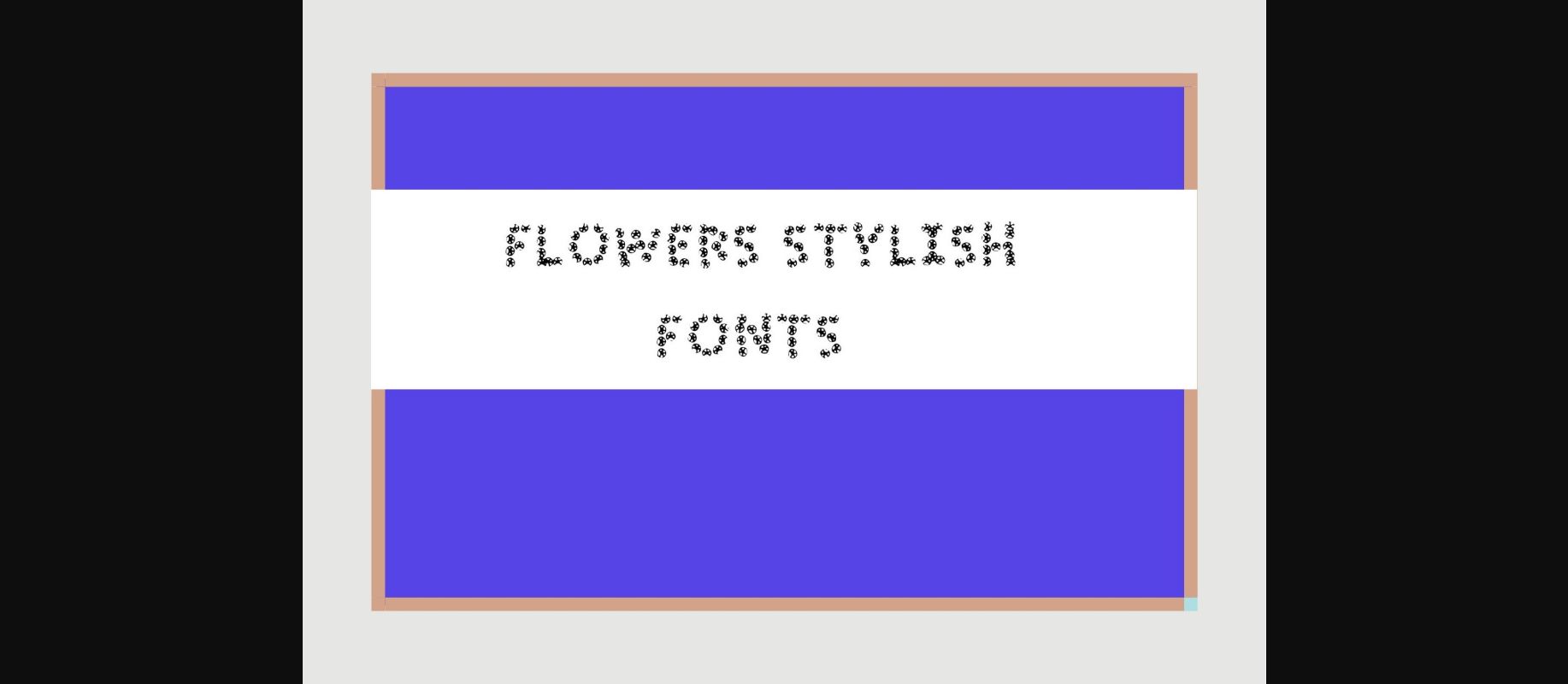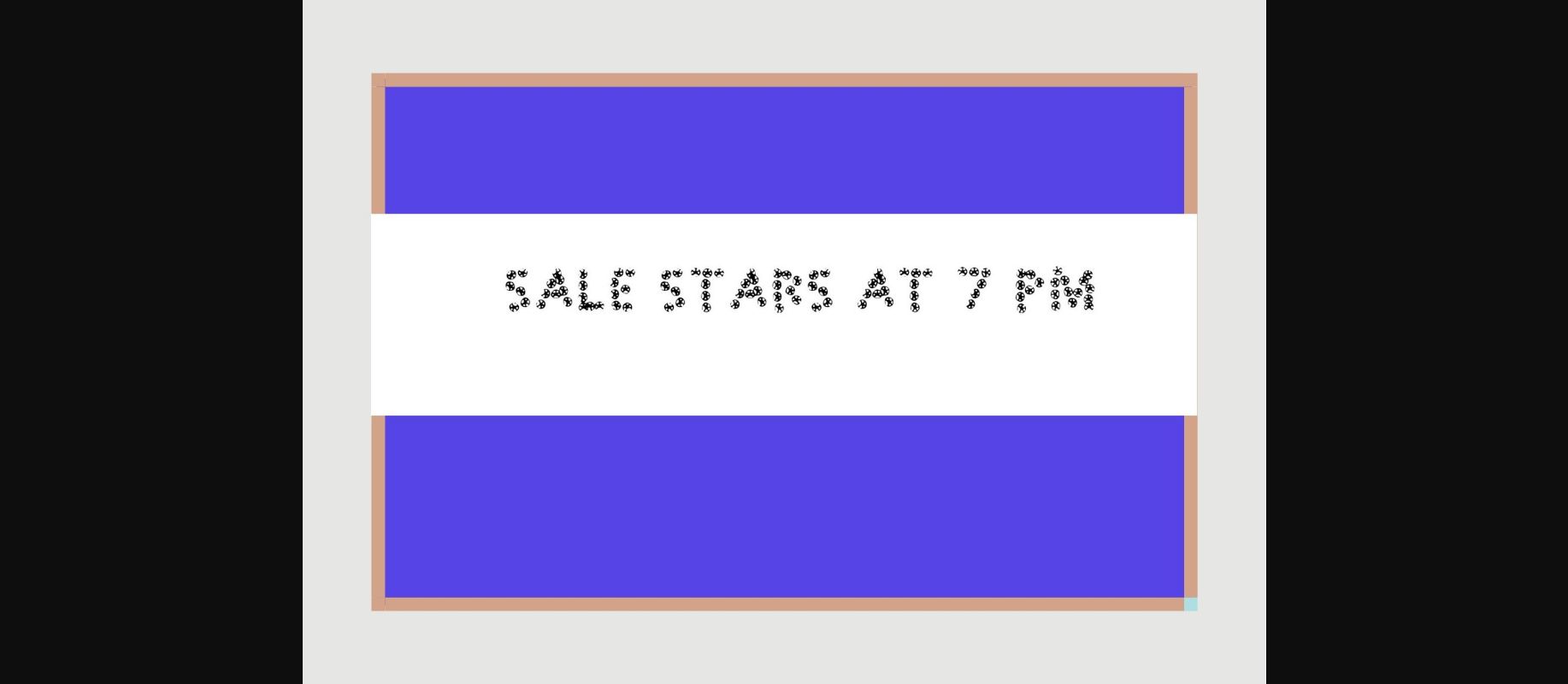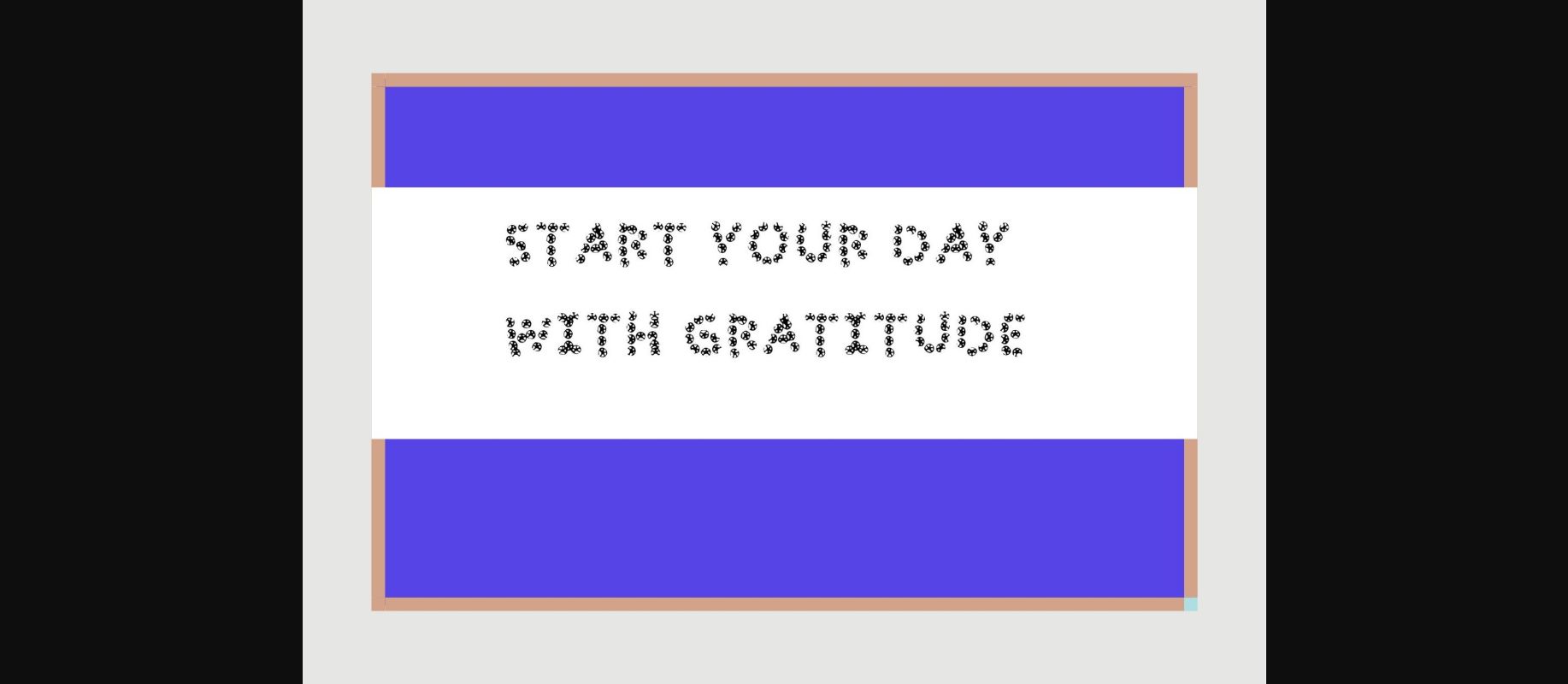
About Flower Stylish Font
Flower stylish is a cool and versatile decorative font. No matter the topic, this font will be an incredible asset to your fonts’ library, as it has the potential to elevate any creation!